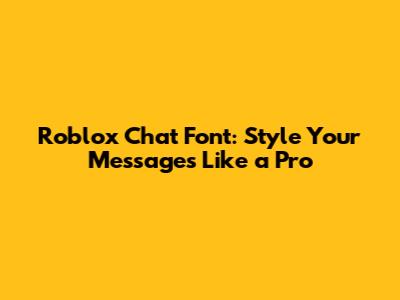
Hey everyone! Ever feel like your Roblox chat messages are just a bit... vanilla? You know, the standard font that everyone else uses? Well, guess what, guys? You can totally switch things up and make your messages pop with a Roblox chat font! It's a super simple way to express yourself, add some flair, and basically just make your chats way more interesting. We're talking about making your words stand out, whether you're coordinating a game strategy with your crew, bragging about your latest virtual win, or just chilling and chatting with your friends. Imagine sending a message that’s not just text, but a bold statement, or maybe a cool, italicized whisper. It's all about personalization, and honestly, who doesn't love making their mark in the virtual world? This isn't just about looking cool, though. Sometimes, using different fonts can help with clarity, especially in fast-paced games where you need to get your point across quickly. A bold font might catch someone's eye faster than plain text, or a distinct style could help differentiate between important game instructions and casual banter. So, stick around, because we're diving deep into how you can jazz up your Roblox chats with different fonts, explore the possibilities, and make your messages unforgettable. It’s easier than you think, and the results are totally worth it. Let’s get our chat game on point!
Understanding Roblox Font Limitations and Possibilities
Alright, let's get real for a sec, guys. When we talk about changing your Roblox chat font, it's important to understand what's actually possible within the game itself. Unlike some other platforms where you have a million font options at your fingertips, Roblox is a little more… curated. By default, Roblox uses a clean, readable font called Source Sans Pro. It’s designed for clarity across different devices and screen sizes, which is super important for a game played by millions. Now, this means you can't just go into your Roblox settings and pick from a dropdown menu of fancy fonts like you might on your word processor. That’s the limitation. However, this doesn't mean you're stuck with boring old text! The magic happens when we look at how we can manipulate the text before it even hits the Roblox chat window. Think of it like this: Roblox gives you a standard canvas, but you can bring your own special paint. The most common and effective way to get different chat fonts is by using external Unicode text generators. These online tools are literally designed to create text characters that look like different fonts but are actually just cleverly disguised standard characters. For example, you can generate bold text, italicized text, bold-italicized text, or even fonts that look scripty, monospace, or circled. These special characters are part of the Unicode standard, which supports a vast array of symbols and characters from different languages and writing systems. When you copy and paste these from a generator into Roblox chat, the game displays them using its default font renderer, but since the underlying characters are different, they appear as if you're using a new font. It’s a bit of a hack, but a super fun and widely accepted one! The key takeaway here is that you’re not changing Roblox’s actual font files; you’re using special characters that mimic different font styles. This is why sometimes you might see characters that don't quite render perfectly, or if you try to use too many fancy characters, it might look a bit jumbled. But for the most part, it’s a fantastic way to express yourself and add some serious personality to your messages. So, while direct font selection is out, the world of Unicode text generation opens up a whole playground for creative chat messages on Roblox.
How to Use Special Characters for Roblox Chat Fonts
Alright, so you’re hyped to try out some cool Roblox chat font styles, right? Let’s break down the exact steps to get those stylish messages flying. It's pretty straightforward, and you don't need to be a tech wizard, promise! The main tool in your arsenal is a Unicode text generator. There are tons of these websites out there – just do a quick search for “Roblox font generator” or “fancy text generator” and you’ll find plenty. Some popular ones include Lingojam, Fancy Text Generator, or YayText. They all work pretty much the same way. Step 1: Open the Generator. Head over to one of these websites. You’ll usually see a box where you can type your message. Step 2: Type Your Message. This is where you write what you want to say. Whether it's “Hey guys, meet me at the spawn point!” or “OMG, I just got the rarest item!”, type it all out in the input box. Step 3: Choose Your Style. Now for the fun part! Below or beside your typed message, the generator will show you a bunch of different styled versions. You'll see options for bold, italics, bold italics, upside-down text, circled letters, S P A C E D O U T text, and even some that mimic different font families like cursive or gothic. Scroll through them and pick the one that best fits your vibe or the message you want to convey. Want to be dramatic? Go for bold. Trying to be mysterious? Maybe italics will do the trick. Step 4: Copy the Styled Text. Once you’ve found the perfect style, there’s usually a little “copy” button next to it, or you can just highlight the text and copy it like you normally would (Ctrl+C on PC, or the equivalent on mobile). Step 5: Paste into Roblox Chat. Now, open up Roblox, go into your game, and open the chat window. Click into the text input area and paste your copied fancy text (Ctrl+V on PC, or paste option on mobile). Step 6: Send and Enjoy! Hit enter, and boom! Your message will appear in the chat with that cool, customized font. Pretty neat, huh? It's all about using these special Unicode characters that Roblox can display. The generator simply converts your regular letters into these special symbols. Remember, consistency is key if you want your messages to be easily readable. While having a whole paragraph in BØLD-ÎTÅLÎĆ might seem epic, a wall of text like that can be tough on the eyes. Mixing it up with occasional bold or italic highlights is usually the best way to go. Experiment with different generators too, as some offer more unique styles than others. Get creative, guys, and let your personality shine through your chats!
Popular Roblox Chat Font Styles and Their Uses
Let's dive into some of the most popular Roblox chat font styles you'll see and how people typically use them to level up their in-game communication. Understanding these can help you both create cooler messages and recognize what your friends are trying to convey. First up, we have the classic BOLD text. This is probably the most common and useful style. BOLD text is fantastic for grabbing attention. Use it for important announcements like, “SERVER RESET IN 5 MINUTES!” or for emphasizing key information, “The treasure is behind the waterfall!” It’s also great for making your username or your character's name stand out if you’re roleplaying. Think of it as the virtual equivalent of shouting something important so everyone hears it clearly. Next, we have ITALICIZED text. This style is more subtle than bold. It’s perfect for conveying a softer tone, like a whisper, or for adding emphasis without being too aggressive. You might use italics for thoughts in roleplay scenarios, like I wonder if anyone will find my secret hideout..., or for adding a touch of sarcasm or irony. It can also be used for quoting someone or referencing something specific. Then there's the BOLD-ITALIC combination. This is your power move for when you really need to make a statement. It’s intense and draws significant attention, so use it sparingly for maximum impact. Imagine announcing a major event or a critical warning: “EVERYONE EVACUATE THE AREA NOW!” or celebrating a massive achievement, “WE WON THE CHAMPIONSHIP!” Moving on, let's talk about C I R C L E D T E X T or S P A C E D O U T T E X T. These are more stylistic and less about emphasis. They can be great for creating a unique visual effect or for separating parts of your message. For instance, you might use spaced-out text for a dramatic pause or to list items clearly. C I R C L E D T E X T is often used for a more whimsical or playful feel, or just to be different. Another popular style is the SCRIPT FONT. This looks like cursive handwriting and gives off a sophisticated, elegant, or sometimes even a slightly mysterious vibe. It’s great for roleplaying as a noble, a magician, or just for adding a touch of class to your messages. For example, “Allow me to introduce myself.” Finally, you have MONOSPACE FONT. This style makes each character take up the same amount of horizontal space, similar to old typewriters or code. It can give a very technical or retro feel. You might use it for specific game instructions, like `print(